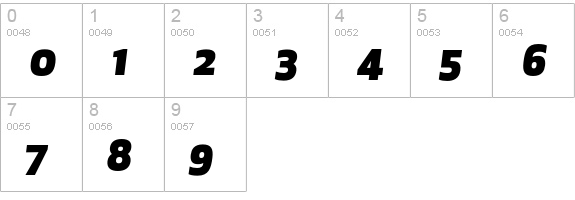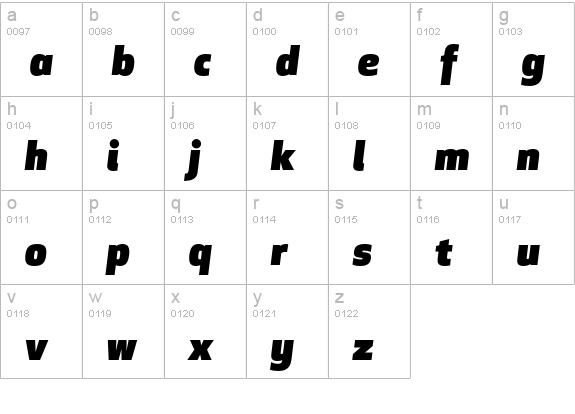
Introducing ApexNew-UltraItalic font, a sleek and modern typeface that exudes elegance and sophistication. This font features ultra-italic styling that adds a touch of flair to any design project. Its clean lines and sharp angles make it perfect for creating eye-catching headlines, logos, and branding materials. What sets ApexNew-UltraItalic font apart is not only its stunning aesthetic appeal but also its versatility. Whether you're working on a fashion magazine layout, a luxury brand website, or a high-end advertising campaign, this font will elevate your design to the next level. And the best part? ApexNew-UltraItalic font is completely free to download at FontsMarket.com. With just a few clicks, you can add this premium font to your collection without breaking the bank. Don't miss out on this opportunity to enhance your design projects with the stylish and sophisticated ApexNew-UltraItalic font. Download it today and watch your creations come to life!